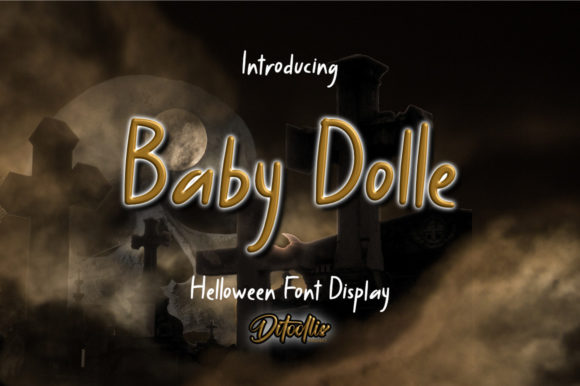
Descend into the realm of typography with Baby Dolle, a captivating display font born from the creative minds at Ditoollis Project. This font exudes simplicity, cleanliness, and adaptability, making it a versatile addition to any designer's toolkit. Prepare to be mesmerized as Baby Dolle transforms your designs into captivating masterpieces.
Baby Dolle possesses an innate ability to elevate any creation, regardless of the theme or subject matter. Its versatility shines through, whether you're crafting logos, posters, branding materials, or social media graphics. Let your imagination soar as Baby Dolle effortlessly enhances your designs, leaving a lasting impression on your audience.
With Baby Dolle, you're not just downloading a font; you're embracing a boundless universe of creative possibilities. This font ignites your imagination, propelling you to new heights of design brilliance. Unleash your inner artist and let Baby Dolle guide you towards captivating designs that resonate with your audience.
As a display font, Baby Dolle commands attention effortlessly. Its bold and distinct characters make your words leap off the screen, demanding to be noticed. Whether you're creating eye-catching headlines, alluring posters, or captivating social media posts, Baby Dolle amplifies your message, ensuring it resonates with your target audience.
But Baby Dolle's charm extends beyond its visual appeal. This font is meticulously crafted to provide exceptional readability, even at smaller sizes. Its clean lines and well-defined letterforms ensure that your message is conveyed with clarity and precision. Baby Dolle respects the importance of legibility, ensuring your designs remain accessible to all.
With Baby Dolle, you're not merely selecting a font; you're making a statement. This font embodies creativity, versatility, and impact. It's the perfect choice for designers, marketers, and entrepreneurs seeking to captivate their audience and leave an indelible mark in the digital realm. Embrace Baby Dolle and witness the transformation of your designs into captivating works of art. Unleash your creativity and let Baby Dolle elevate your branding to unprecedented heights.